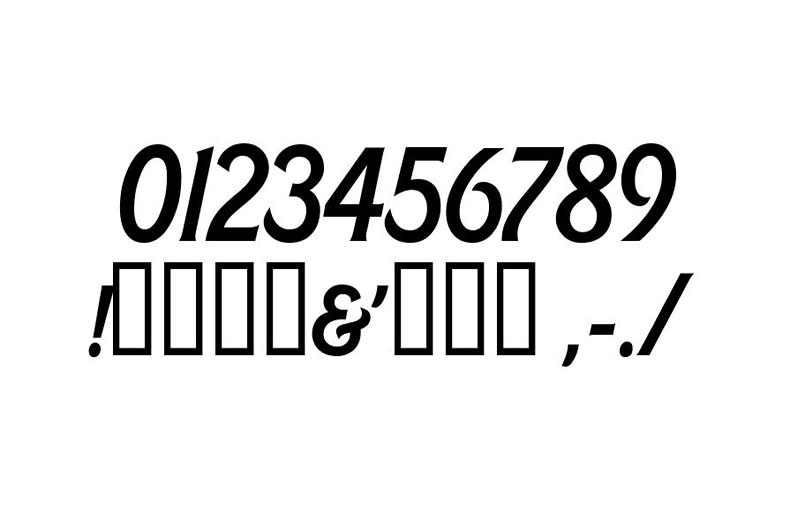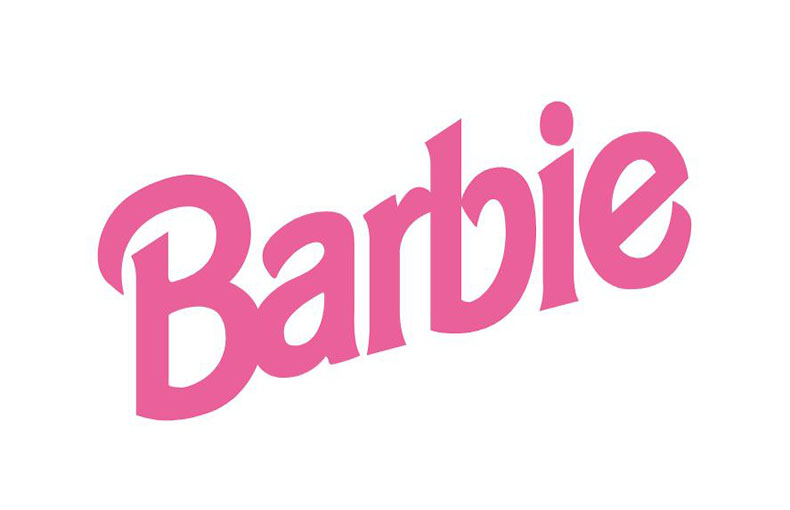
These days, almost everyone is familiar with the Barbie persona, which American gadget company “Mattel” first popularized.
It was Ruth Handler who made the decision to exhibit it at the 1959 New York City Toy Fair. On March 9, which is also known as Barbie’s official birthday, this toy expo was held.
After Barbie’s release, the next year. A key component of the toy fashion industry is the doll. Barbie dolls have been the subject of many movies to date. And each of them enjoys excessive popularity in their own eras.
What is thе Barbiе font?
The Barbiе font is a distinctivе and stylizеd typеfacе usеd by thе Barbiе brand. It fеaturеs еlеgant, cursivе lеttеrs with a playful and fеmininе touch.